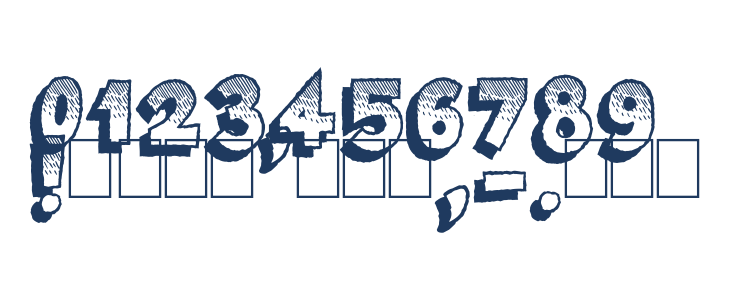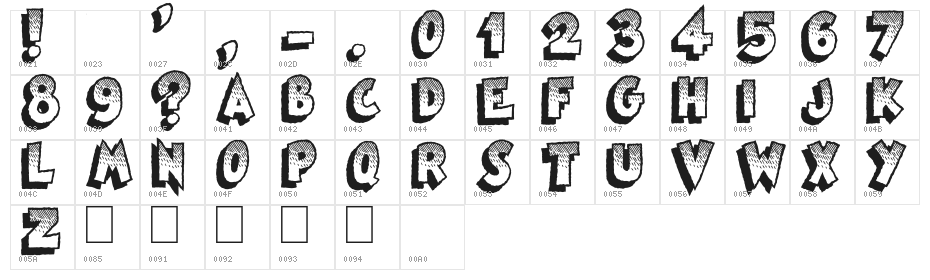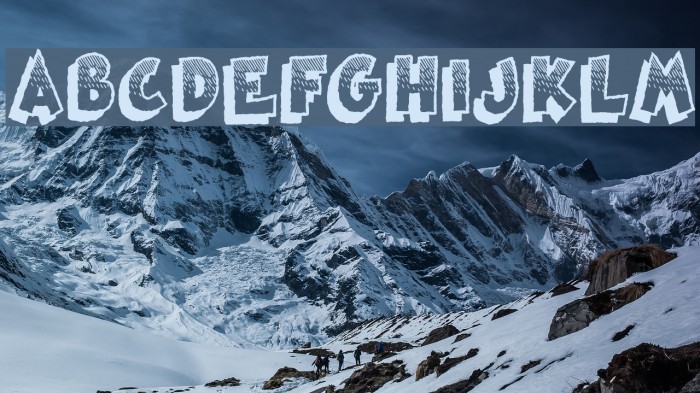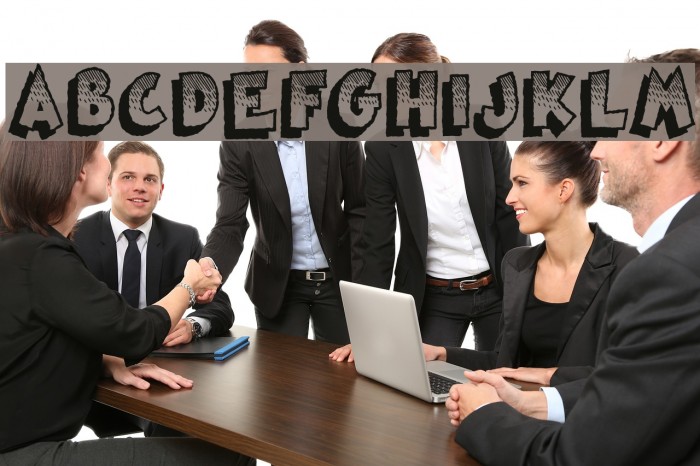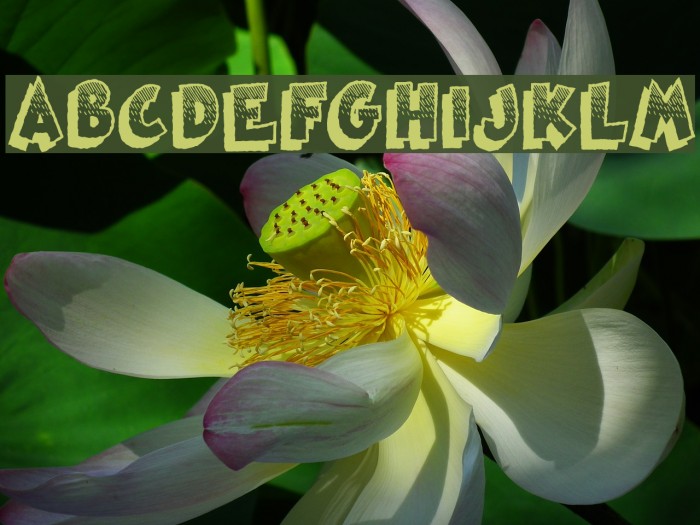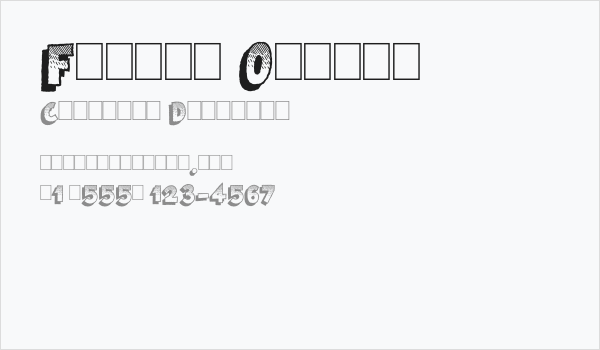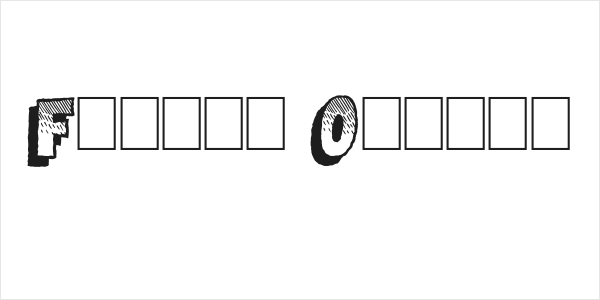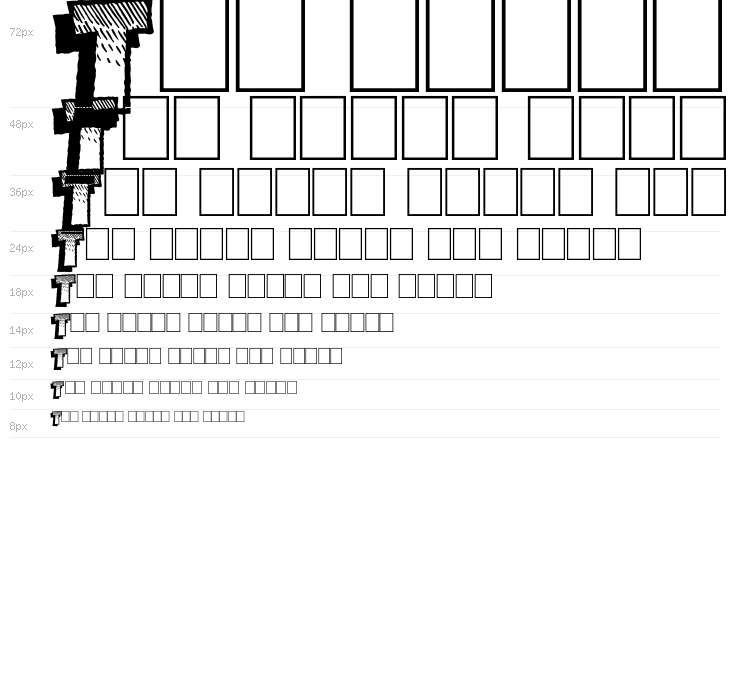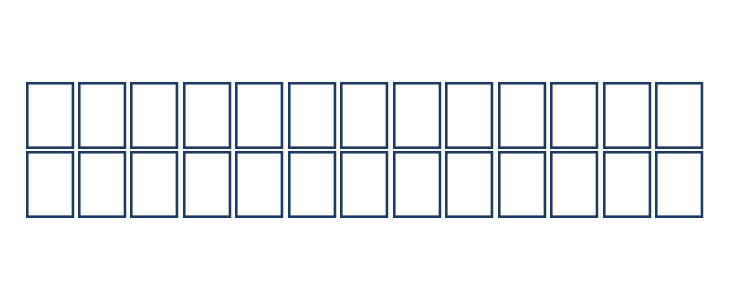
Famous Oldies Font
Famous Oldies Description
This font features a bold, playful style with a distinct 3D shadow effect that gives it a dynamic and eye-catching appearance. The characters are uppercase and have a hand-drawn quality, with irregular edges and a textured fill that adds depth and interest. The numbers and special characters follow the same design, ensuring consistency across all elements. This font is ideal for projects that require a fun and energetic vibe, such as children's books, comic strips, or playful branding materials. Its unique style makes it stand out, capturing attention with its bold presence.
| Overall Style | Playful, Energetic, Bold |
| Use Case | Headlines, Posters, Branding |
| Proposed Projects | Ideal for children's books, comic strips, playful branding, and eye-catching posters. |